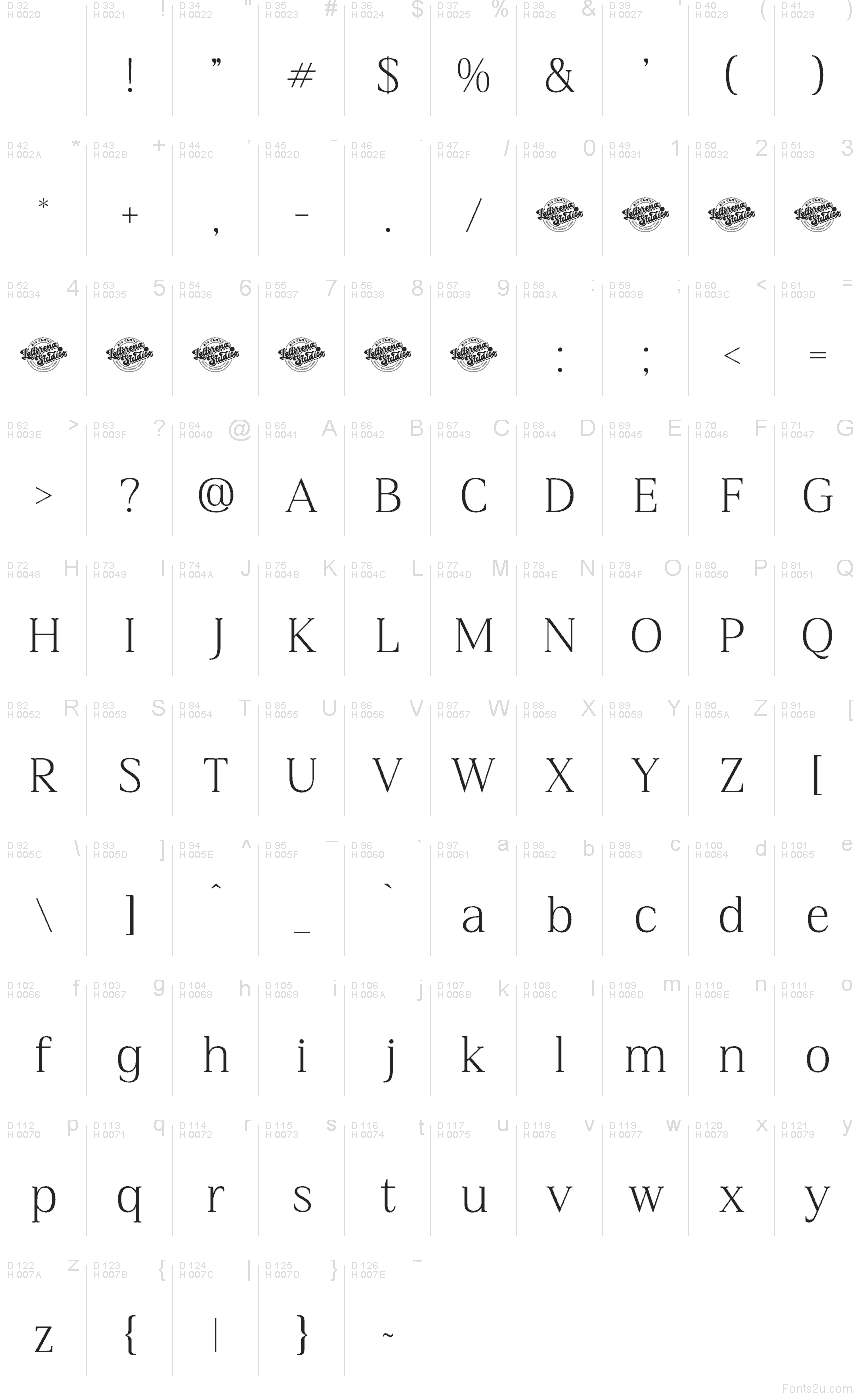
Blacindy DEMO VERSION
Blacindy font by Letterena Studios is a free serif typeface with a refined, fashion-forward attitude. Its letters are tall, slim, and delicately drawn, with fine strokes and quiet, confident serifs that feel like ink pulled gently across smooth paper. The overall effect is airy and elegant, giving layouts a couture, editorial polish without feeling stiff or old-fashioned.
Using Blacindy, your work immediately leans toward beauty brands, magazine covers, lookbooks, invitations, packaging, and minimalist posters. This free font shines on large titles and wordmarks where its graceful details can breathe, while smaller supporting text works best in a clean sans serif for contrast. Try pairing Blacindy headlines with a simple grotesque body type and generous letterspacing to create a calm, luxurious reading experience.